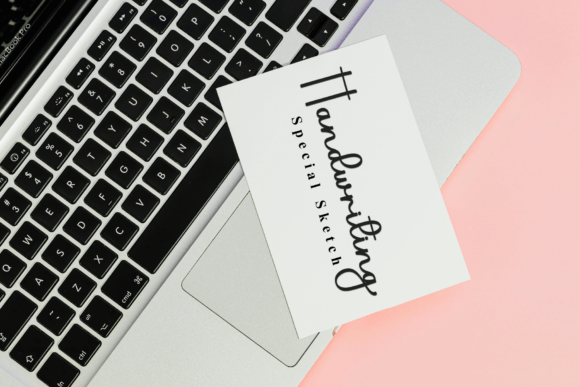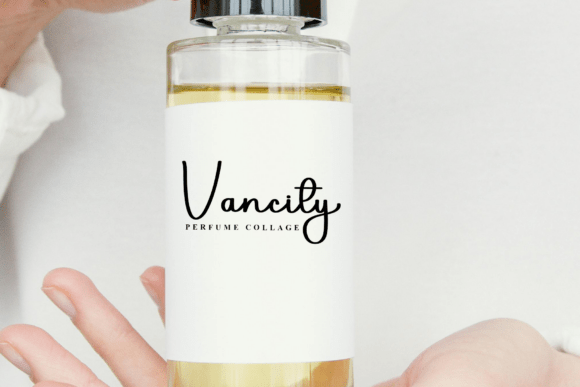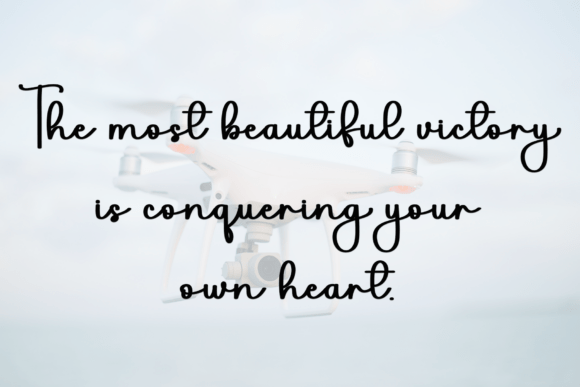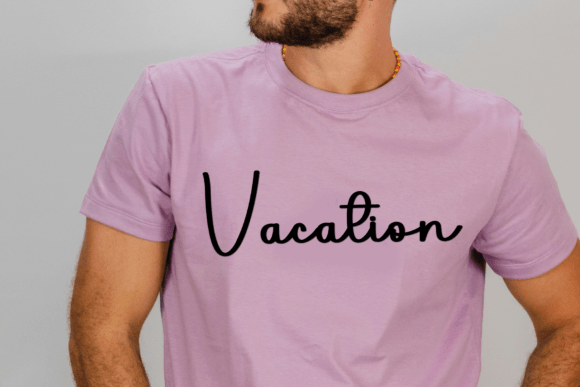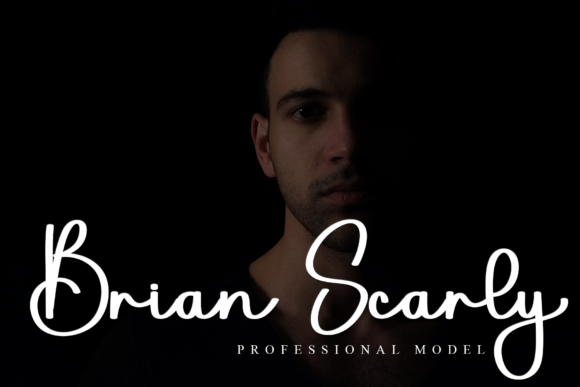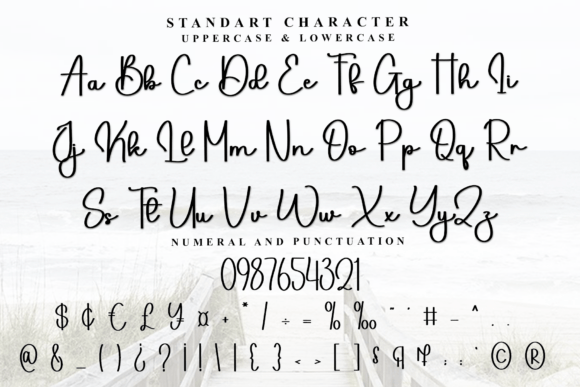
Introducing Birthday April Font: The Perfect Holiday Typeface
Are you looking for a font that captures the spirit of the holiday season? Look no further than Birthday April Font! This festive and merry typeface is designed to add a touch of enchantment to your designs, making it perfect for greeting cards, gift tags, and holiday-themed projects.
A Festive and Whimsical Typeface
Birthday April Font is a decorative typeface that features whimsical elements and a playful flair. Its unique design makes it stand out from other fonts, adding a cheerful and nostalgic ambiance to your words. Whether you’re creating holiday-themed projects or simply want to add a touch of festivity to your designs, this font is sure to impress.
Birthday April Font is a versatile typeface that is perfect for designers and crafters alike. Its decorative elements and whimsical flair make it ideal for a variety of projects, including:
- Greeting cards: Add a touch of festivity to your holiday greeting cards with this cheerful font.
- Gift tags: Make your gift tags stand out with this unique and playful typeface.
- Holiday-themed projects: From Christmas decorations to Halloween-themed designs, this font is perfect for any holiday project.
One of the best features of Birthday April Font is that it is PUA (Private Use Area) encoded. This means that you can access all of the amazing glyphs and ligatures with ease, making it simple to create beautiful and unique designs. With PUA encoding, you can:
- Easily access special characters and glyphs.
- Create custom ligatures and swashes.
- Unique design: This font features a unique and playful design that is sure to stand out.
- Versatility: From greeting cards to holiday-themed projects, this font is perfect for a variety of designs.
Birthday April Font is a festive and merry typeface that is perfect for designers and crafters looking to add a touch of enchantment to their designs. With its decorative elements and whimsical flair, this font is sure to bring a cheerful and nostalgic ambiance to your words. Whether you’re creating holiday-themed projects or simply want to add a touch of festivity to your designs, Birthday April Font is the perfect choice.